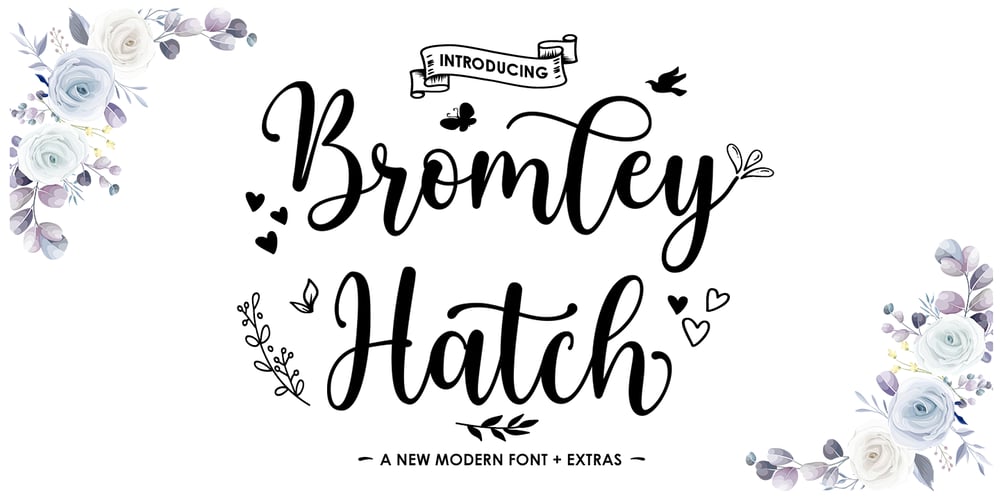
Bromley Hatch
Bromley Hatch font
Bromley Hatch Font Family was designed by Muammar Kadafi and published by Attract Studio. Bromley Hatch contains 2 styles and family package options. Bromley Hatch & Extras is a modern scripts with handwriting, decorative characters, and basic dance lines! designed to perfectly combine informal, sassy, romantic, sweet scripts, and hand-drawn design elements allow you to create many beautiful typographic designs in an instant, just in time for branding, logos, web design and editorial, branding, prints , invitations, crafts, quotes, and more.